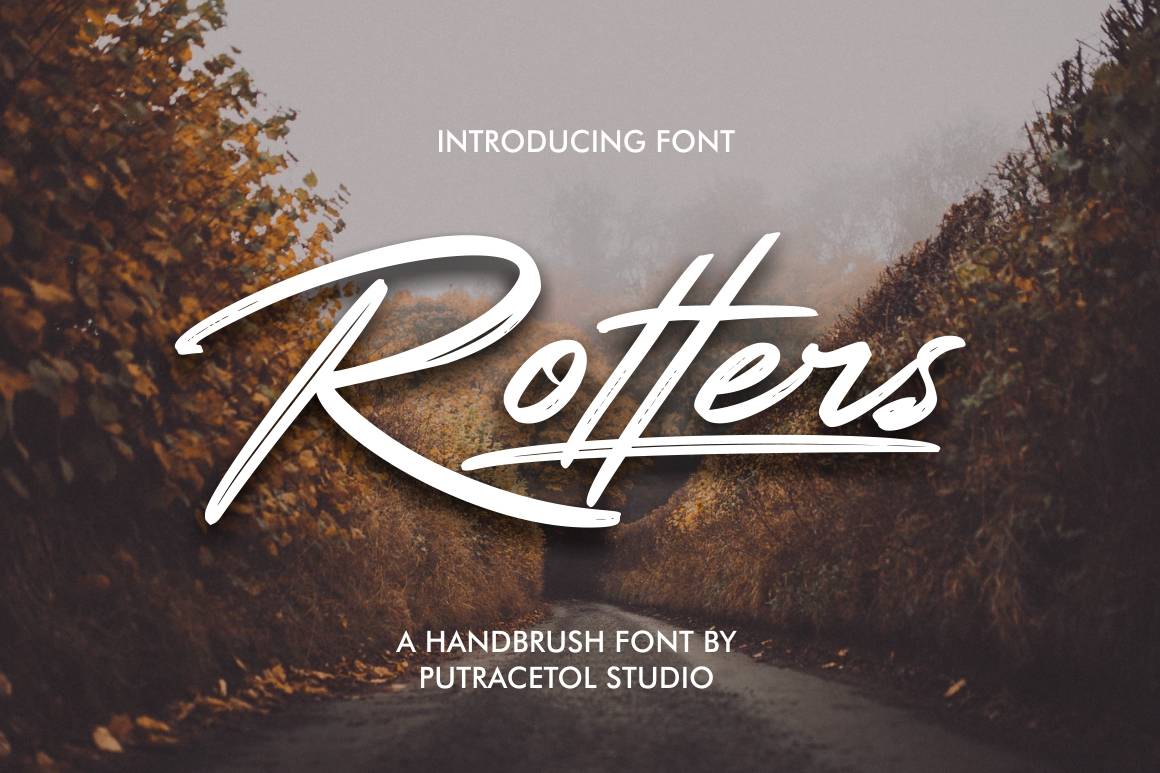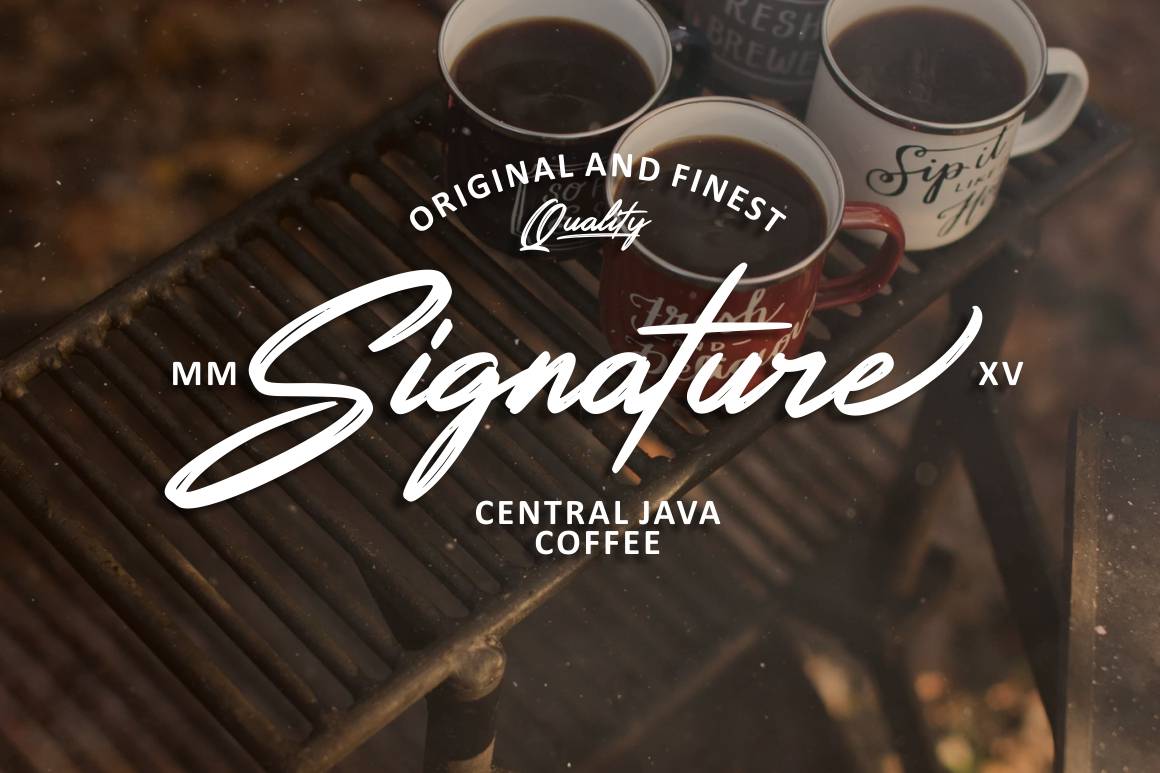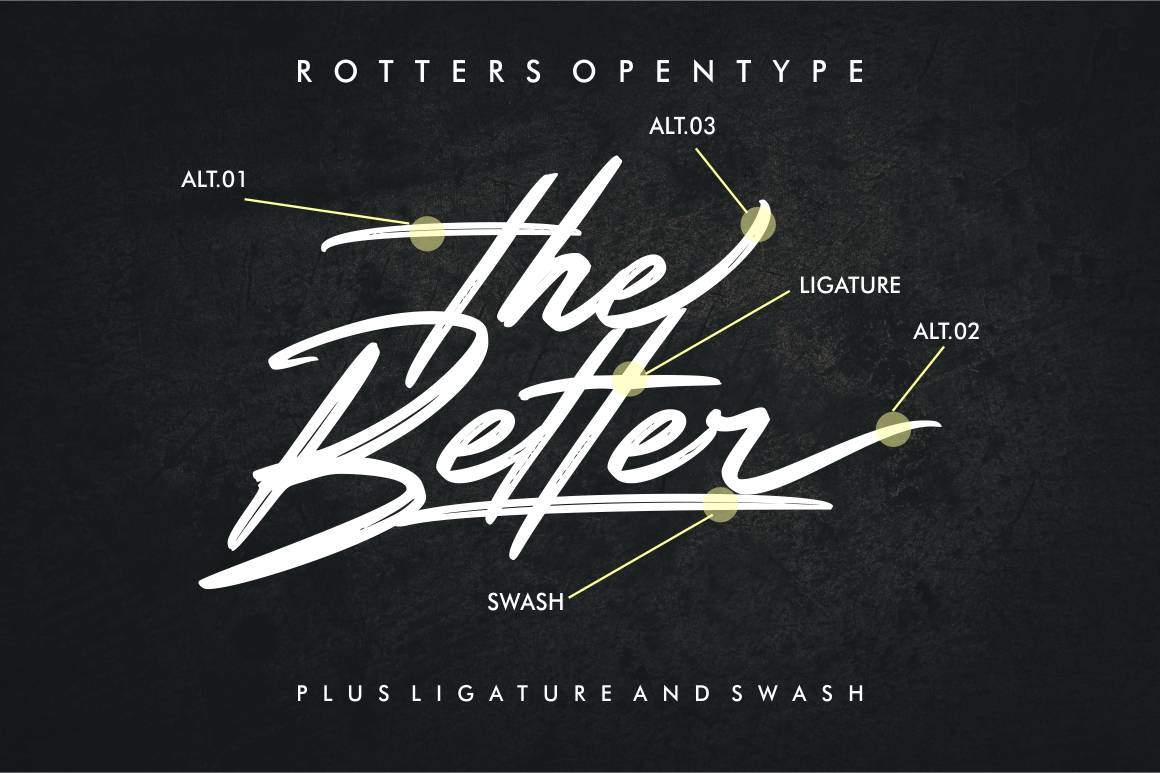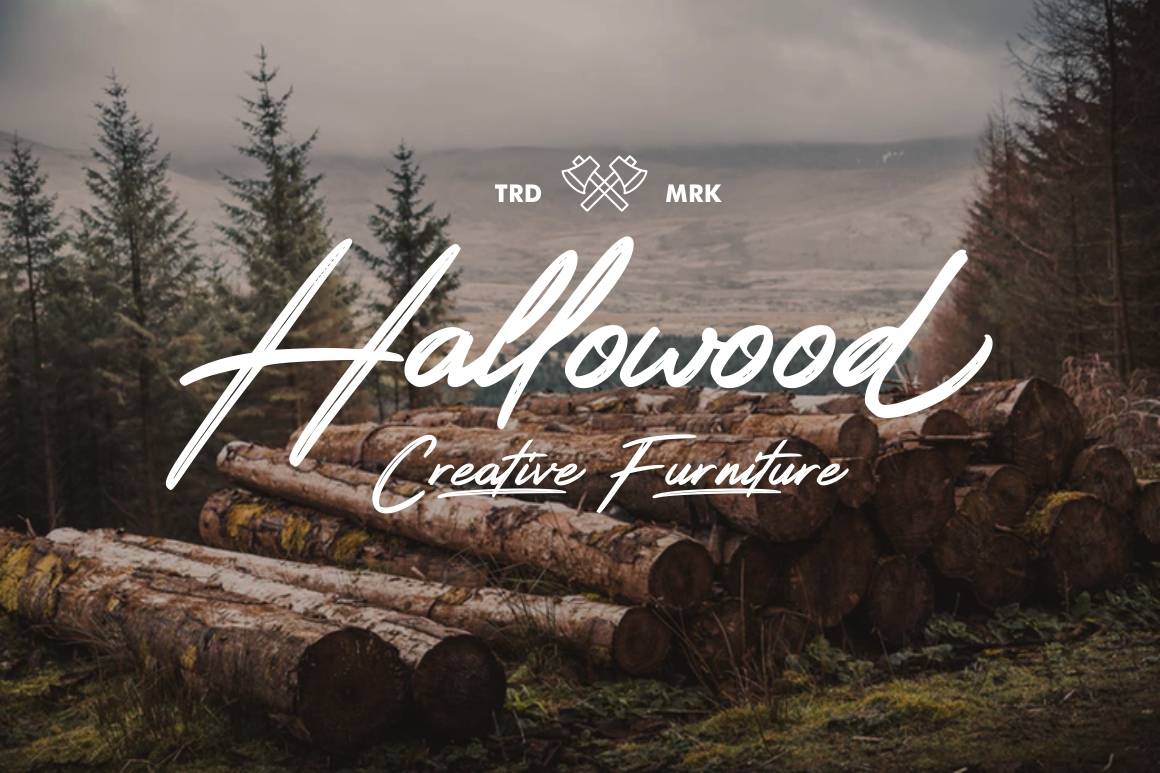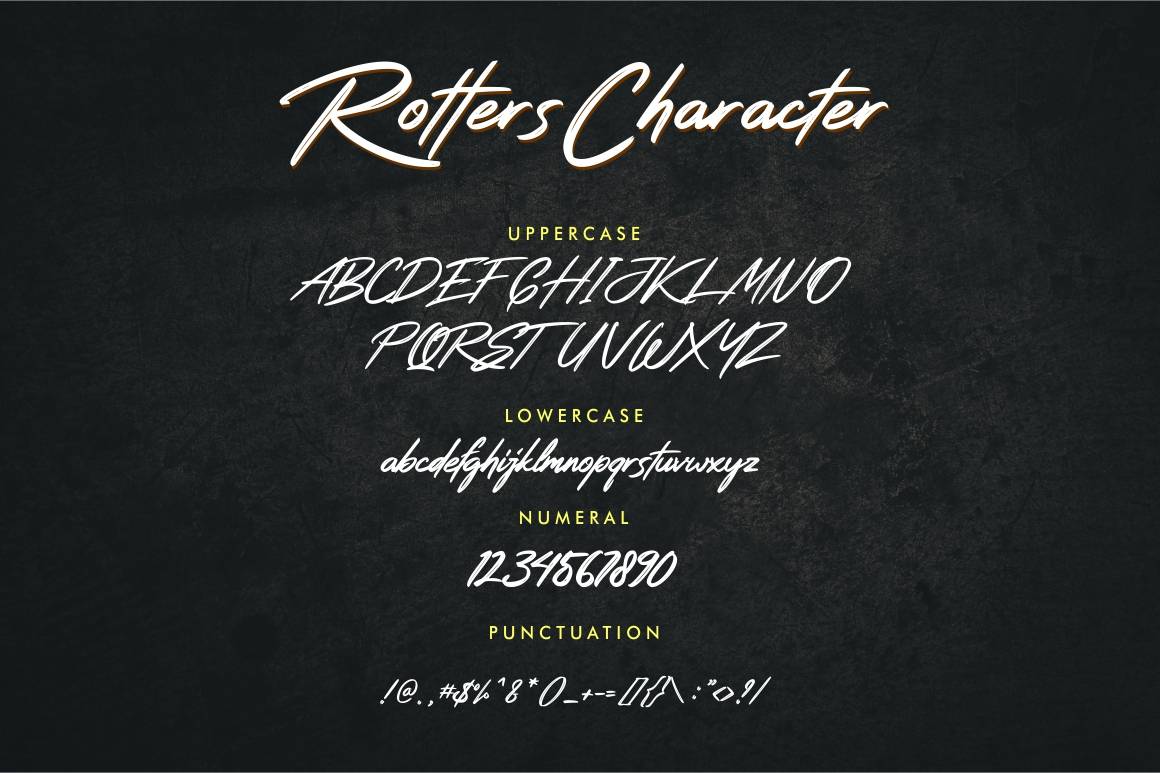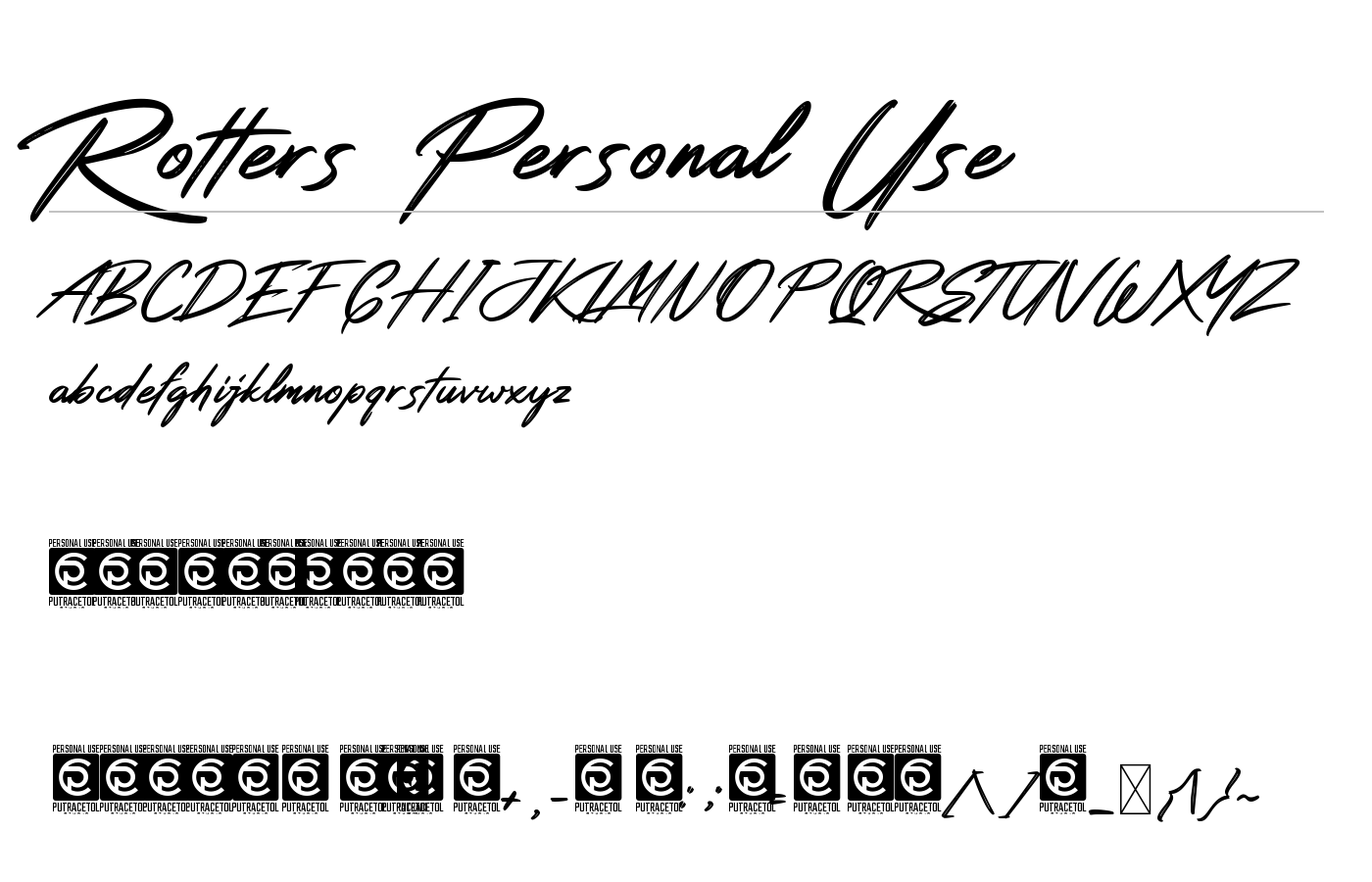
Rotters is a lively, handwritten script font with a casual and expressive style, featuring sweeping, fluid strokes and a slightly slanted, brush-like appearance. Its energetic letterforms and dynamic movement make it perfect for creative projects, branding, invitations, and other designs needing a personal, approachable touch. This font works best in headlines and display uses where a bold, artistic flair can truly stand out.
Rotters
About Rotters
| Font family | Rotters |